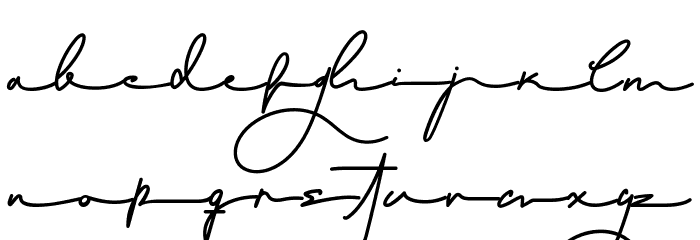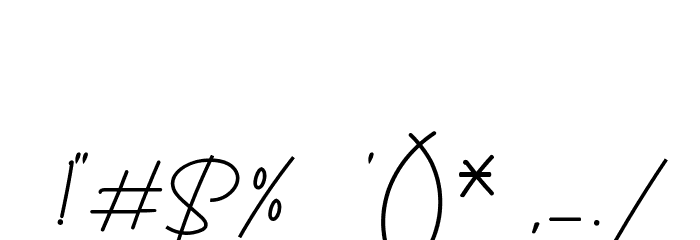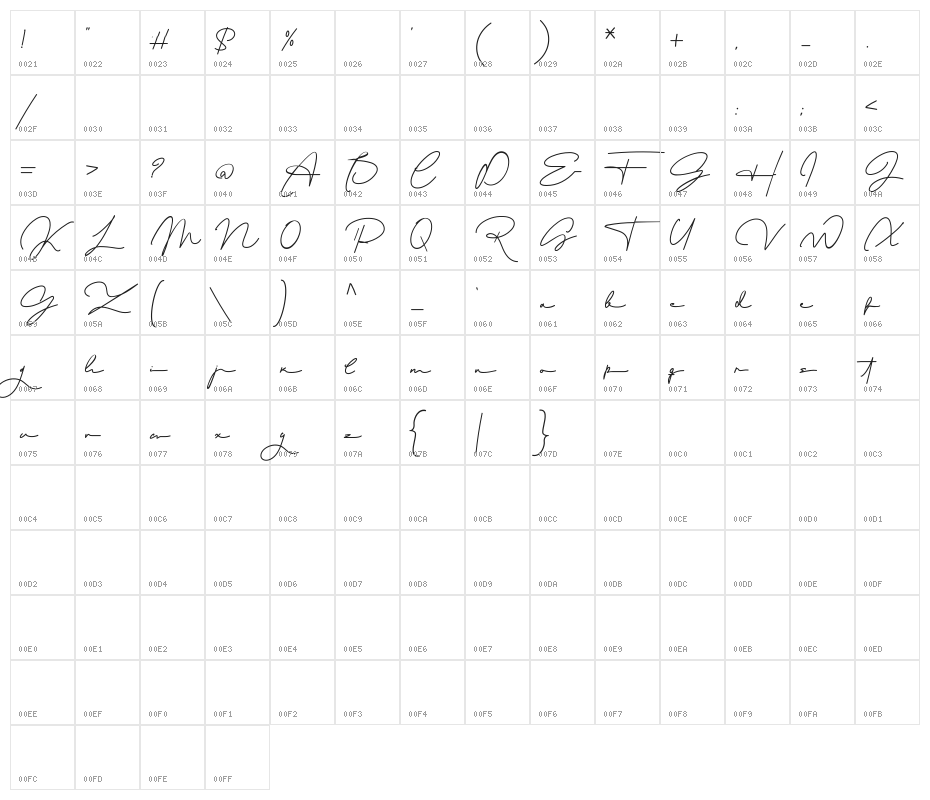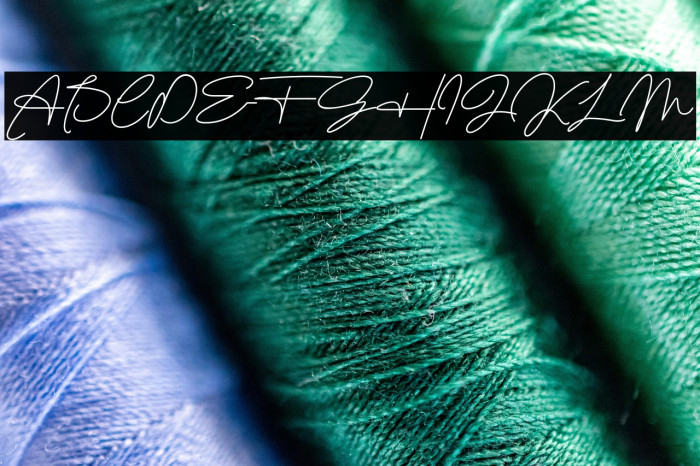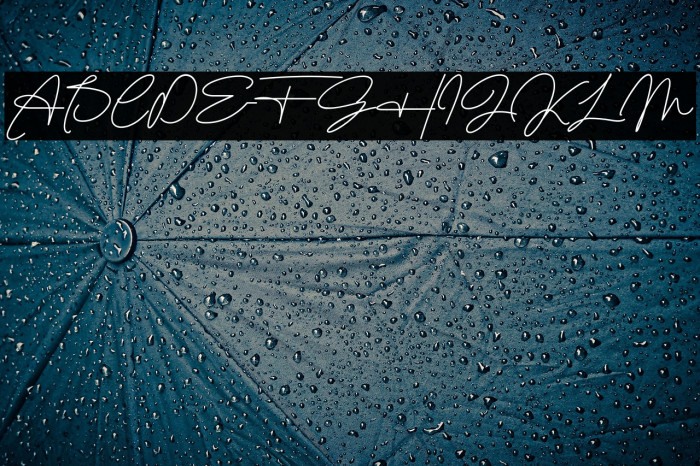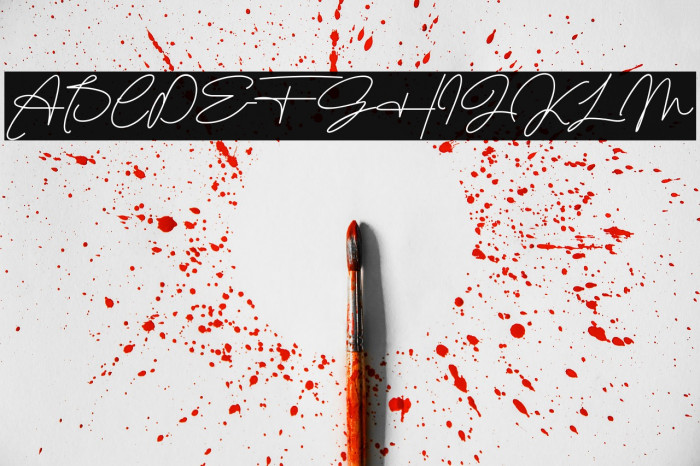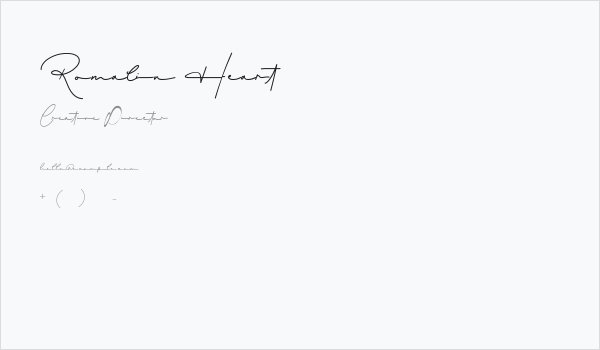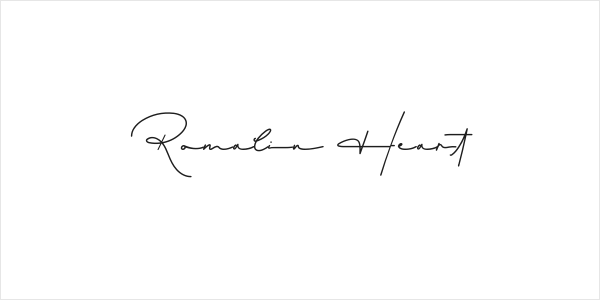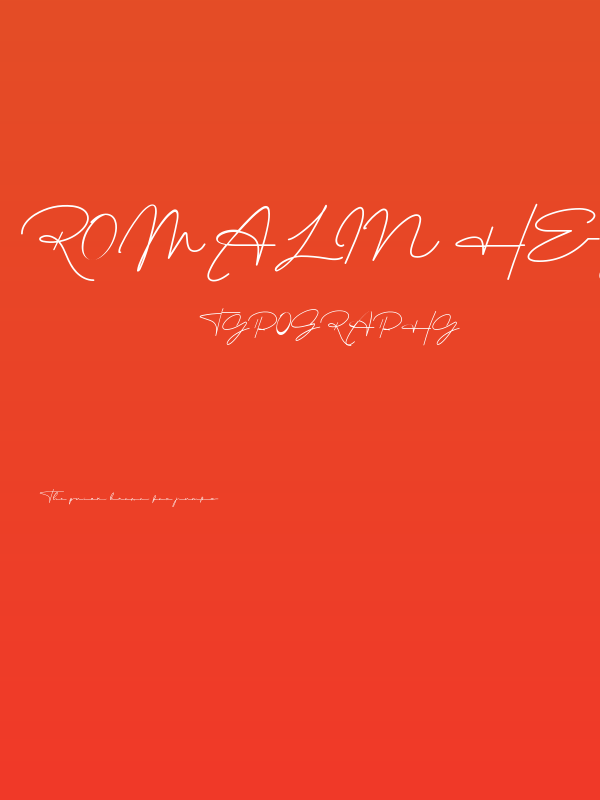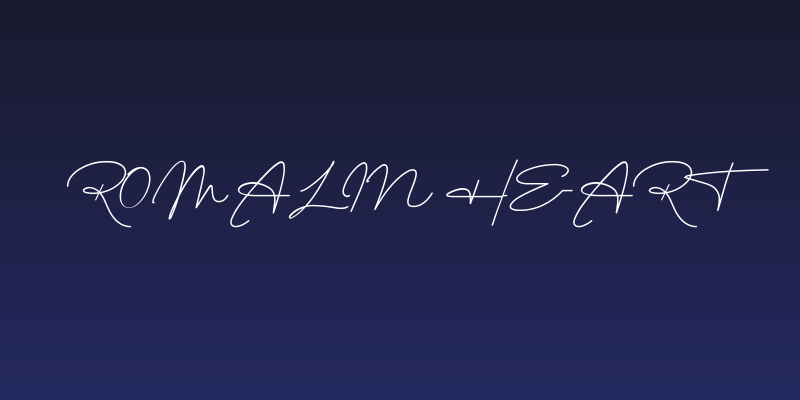
Romalin Heart Font
This elegant script font features a flowing, cursive style that mimics natural handwriting. The uppercase letters are characterized by their sweeping, interconnected strokes, giving a sense of fluidity and grace. The lowercase letters maintain a consistent style, with elongated loops and delicate curves that enhance the font's sophisticated appearance. The numerals and special characters are designed to complement the overall aesthetic, maintaining the same graceful lines and curves. This font is perfect for projects that require a touch of elegance and personal flair, such as wedding invitations, greeting cards, or branding materials.
A graceful script font with flowing, cursive strokes and elegant curves.
- Font: Romalin Heart
- Proposed Projects: Ideal for wedding invitations, greeting cards, branding, and elegant stationery.
- Category: Script
- Overall Style: Elegant
- Use Case: Headlines, Invitations, Branding